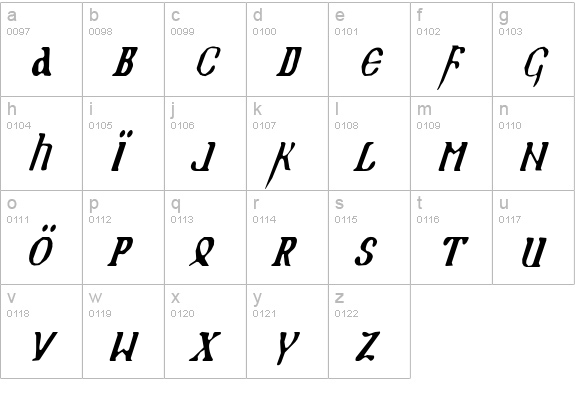
Holy Empire Condensed Italic Font Details
Holy Empire Condensed Italic is a distinctive, condensed-width, italic variant in the Holy typeface family \xE2\x80\x94 well suited to design and typography projects.
The Holy Empire Condensed Italic font exudes elegance and sophistication with its sleek and slender design. Its italicized form adds a touch of flair and modernity, making it perfect for projects that require a refined and contemporary look. This versatile font is ideal for titles, headings, and any design that calls for a touch of class. The best part? Holy Empire Condensed Italic font is available for free download at FontsMarket.com. Now you can elevate your designs without breaking the bank. Don't miss out on this opportunity to enhance your projects with this stylish and captivating font. Download Holy Empire Condensed Italic today and start creating stunning visuals that will leave a lasting impression.